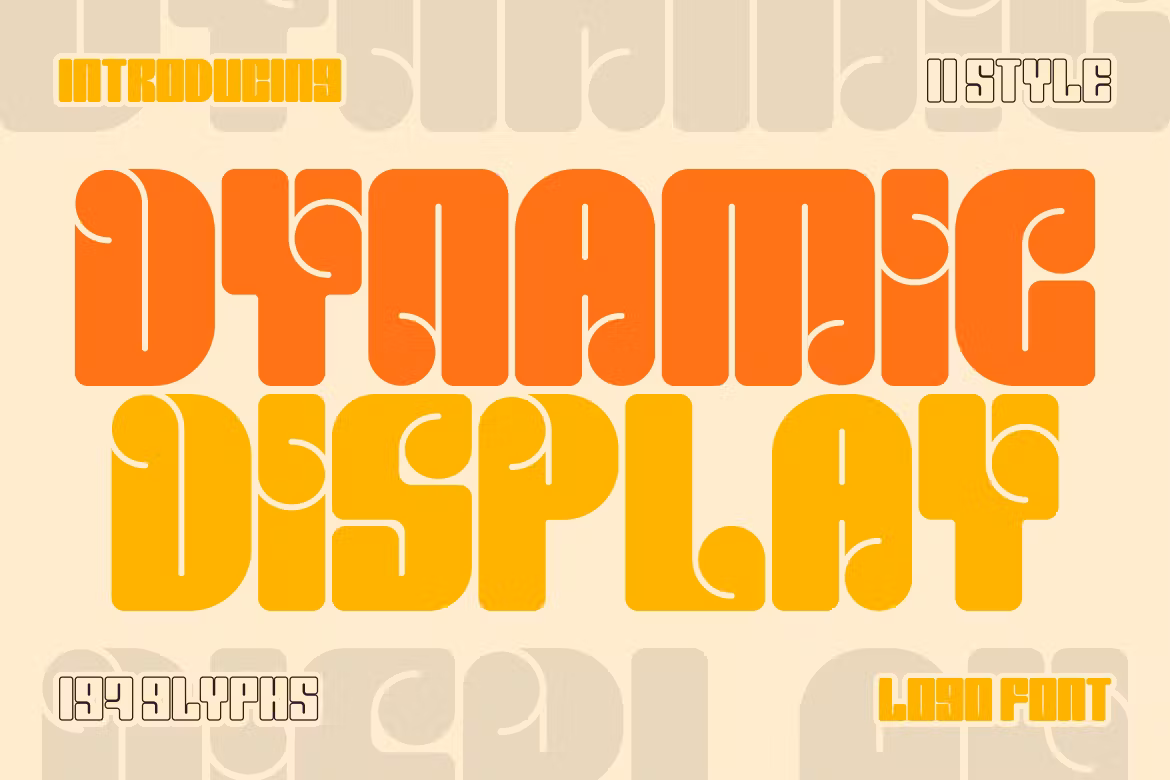
Dynamic Display – Bold Logo Font
This bold font offers a unique look by introducing a bold and playful lettering style. With a quirky twist on traditional bold fonts and unique letter cut-outs, it adds depth and movement, infusing personality into any project. This meticulously crafted typeface, offering 199 glyphs, is ideal for diverse design needs, be it bespoke logos, captivating packaging, and more.
Prochx – Bold Display Font
Prochx is a bold display font that offers a fun character with alternative strokes, boasting sharp, tall edges. Providing support for over 100 languages, its versatility makes it great for logo design, social media posts, movie and book titles, and any text requirement.
Comic Roasting – Comic Bold Font
This is a playful, bold font that infuses your projects with energy and playfulness. Whether it’s headlines, posters, or children’s books, this dynamic and enduring font does wonders. Capture your audience’s attention with its vibrant strokes and expressive letterforms. Comic Roasting brings versatility to various projects, adding a classic comic charm that leaves a lasting impression.
Friez – Bold Logo Font
Friez is a playful, robust font that adds a vibrant touch to any design. With 196 glyphs, it provides versatility and boldness to everything from children’s books to branding materials. Its appealing visuals ensure impact and memorability, ideal for businesses and crafters seeking to leave a compelling impression.
Bold Ink Simple Font
Bold Ink Simple Font is an artistic and straightforward brush script font, great for a variety of projects, including quotes, logos, doodles, headings, and titles. With .TTF and EOT file formats, it provides basic Latin Unicode, supporting standard English characters, numbers, and symbols. Handmade with simplicity in mind, it’s a creative asset you’ll hopefully love.